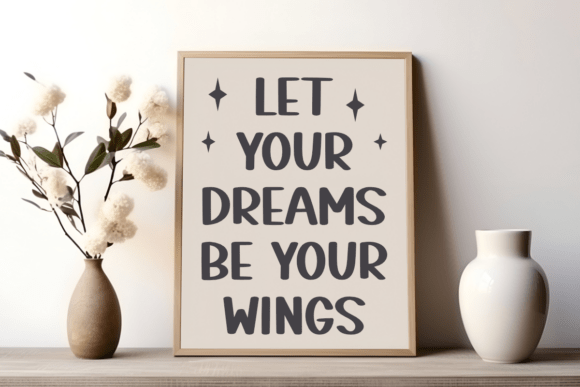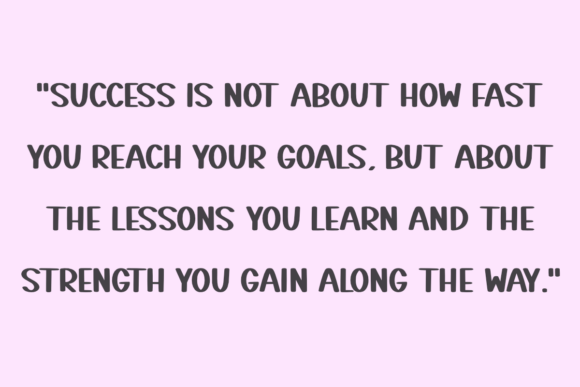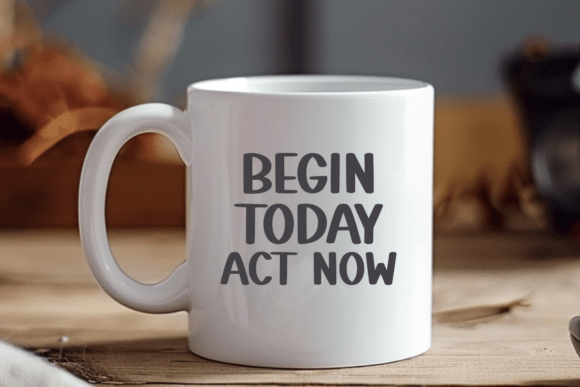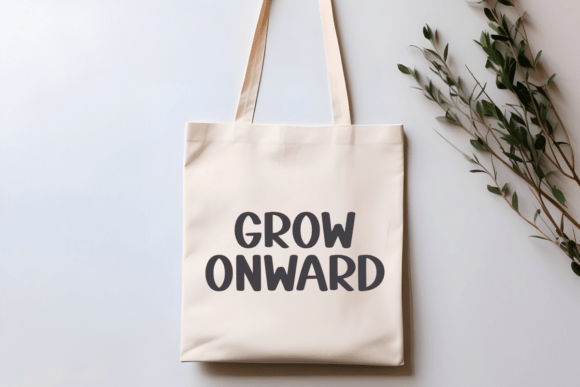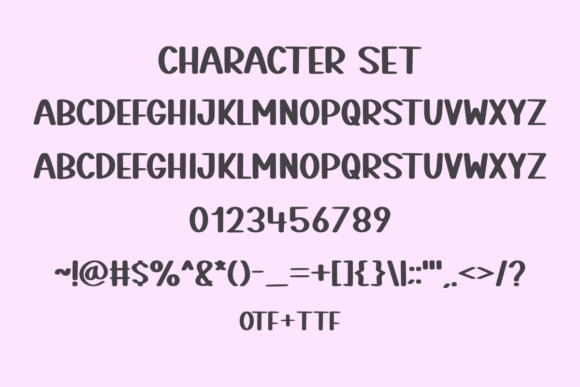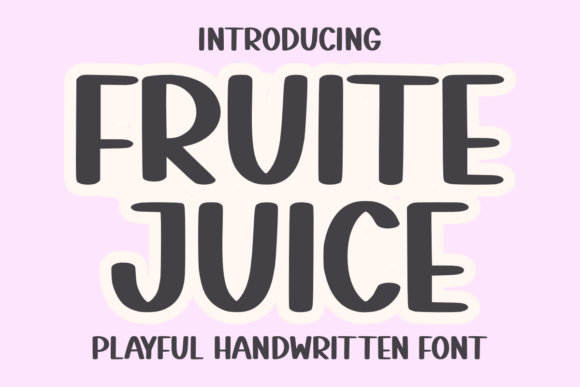
Fruit Juice Font: The Perfect Addition to Your Design Projects
Are you looking for a font that can add a touch of charm and friendliness to your designs? Look no further than the Fruit Juice Font. This bold yet whimsical handwritten font is perfect for a variety of design projects, from kids’ projects to social media graphics. In this article, we’ll take a closer look at the Fruit Juice Font and explore its features, benefits, and uses.
What is Fruit Juice Font?
Fruit Juice Font is a bold, handwritten font that features rounded curves and clean letterforms. Its unique design makes it perfect for adding a cheerful, hand-drawn feel to your designs. The font is simple, sweet, and effortlessly fun, making it ideal for a wide range of design projects.
Key Features of Fruit Juice Font
• Bold and Whimsical Design: The Fruit Juice Font features a bold and whimsical design that is sure to grab attention.
• Rounded Curves and Clean Letterforms: The font’s rounded curves and clean letterforms make it easy to read and add a touch of friendliness to your designs.
• Handwritten Feel: The font’s handwritten feel makes it perfect for designs that require a personal touch.
• Versatile: The Fruit Juice Font is versatile and can be used for a wide range of design projects.
Uses of Fruit Juice Font
The Fruit Juice Font is perfect for a variety of design projects, including:
• Kids’ Projects: The font’s playful design makes it perfect for kids’ projects, such as children’s books, educational materials, and activity sheets.
• Quotes and Posters: The font’s bold design makes it perfect for quotes and posters that require a bold and eye-catching headline.
• Social Media Graphics: The font’s friendly design makes it perfect for social media graphics, such as Facebook posts, Instagram stories, and Twitter headers.
• Any Design Needing a Cheerful, Hand-Drawn Feel: The font’s handwritten feel makes it perfect for any design that requires a personal touch, such as invitations, greeting cards, and flyers.
Benefits of Using Fruit Juice Font
There are several benefits to using the Fruit Juice Font in your design projects. Some of the benefits include:
• Unique Design: The font’s unique design makes it stand out from other fonts and adds a touch of personality to your designs.
• Easily Readable: The font’s clean letterforms make it easily readable, even at small sizes.
• Versatile: The font’s versatility makes it perfect for a wide range of design projects.
• Time-Saving: The font’s pre-designed letters and characters save you time and effort in creating your own custom font.
Tips for Using Fruit Juice Font
Here are some tips for using the Fruit Juice Font in your design projects:
• Use it for Headlines: The font’s bold design makes it perfect for headlines and titles.
• Pair it with Other Fonts: The font’s unique design makes it perfect for pairing with other fonts to create a unique and visually appealing design.
• Experiment with Colors: The font’s playful design makes it perfect for experimenting with different colors and color combinations.
• Use it for Kids’ Projects: The font’s playful design makes it perfect for kids’ projects, such as children’s books and educational materials.
In conclusion, the Fruit Juice Font is a bold yet whimsical handwritten font that adds a touch of charm and friendliness to your designs. Its rounded curves and clean letterforms make it perfect for a wide range of design projects, from kids’ projects to social media graphics. With its unique design, easily readable letters, and versatility, the Fruit Juice Font is a great addition to any design project.